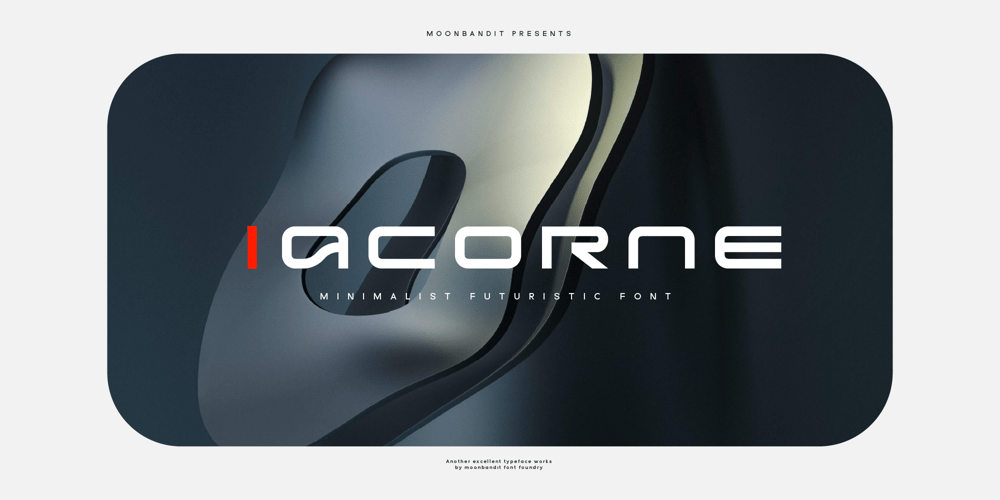
MBF Acorne
MBF Acorne font
MBF Acorne Font Family was designed by Bramaji Dipa Manggala and published by Moonbandit. MBF Acorne contains 1 styles and family package options. Acorne is a wide geometric sans serif display font. A beautiful combination of rounded and straight sharp edge. This modern minimalist typeface design can be used for any theme. Perfect usage includes logo, poster, display, headline, t-shirt design and many more.